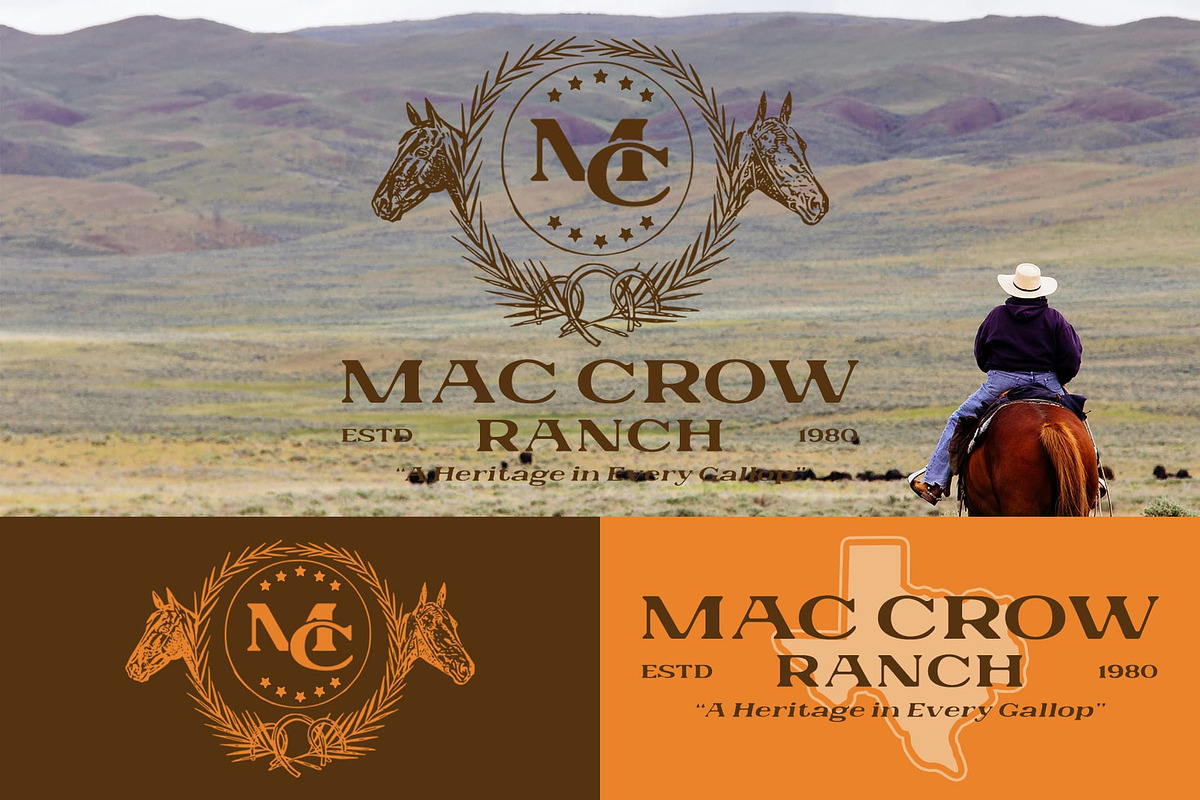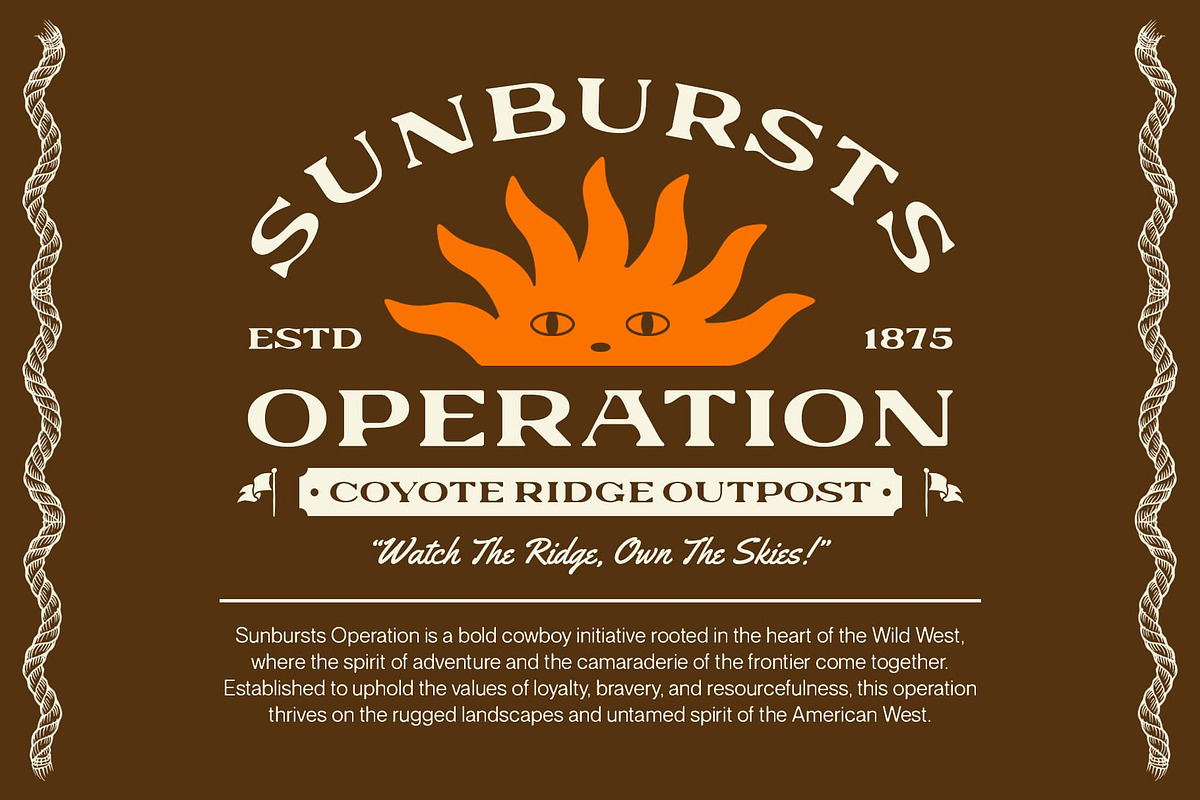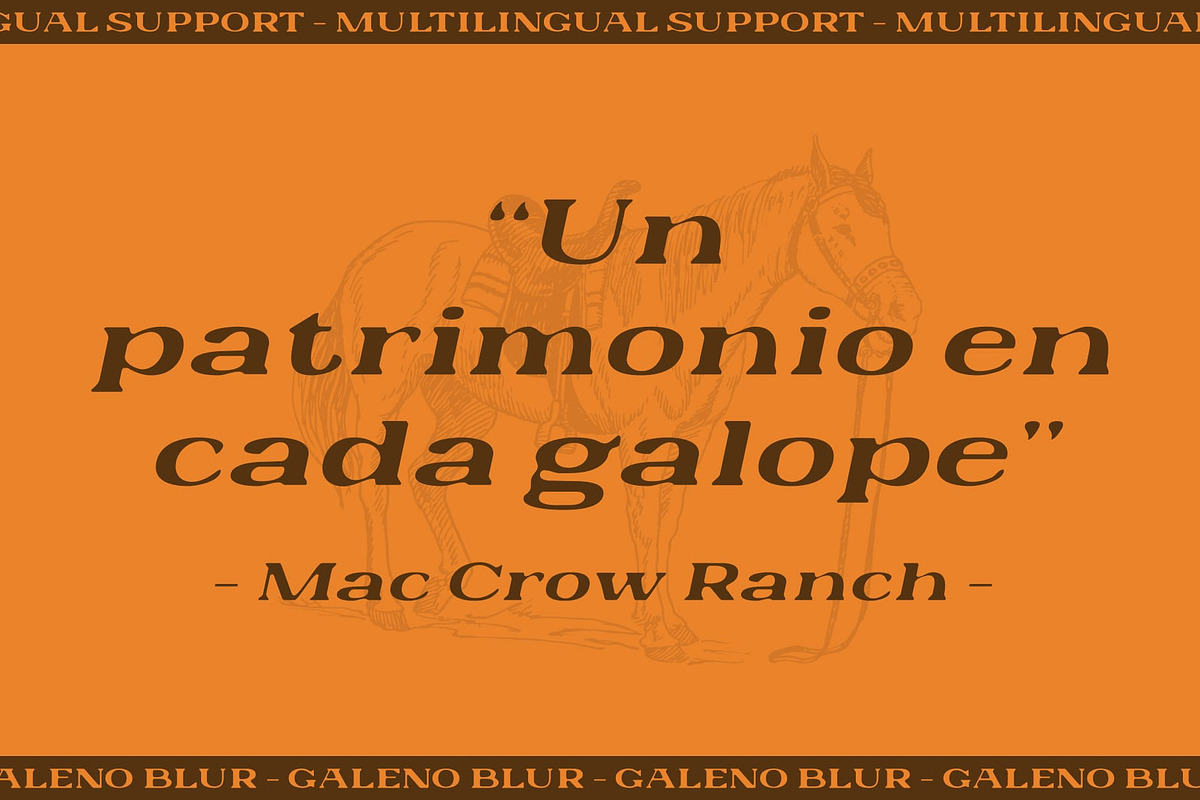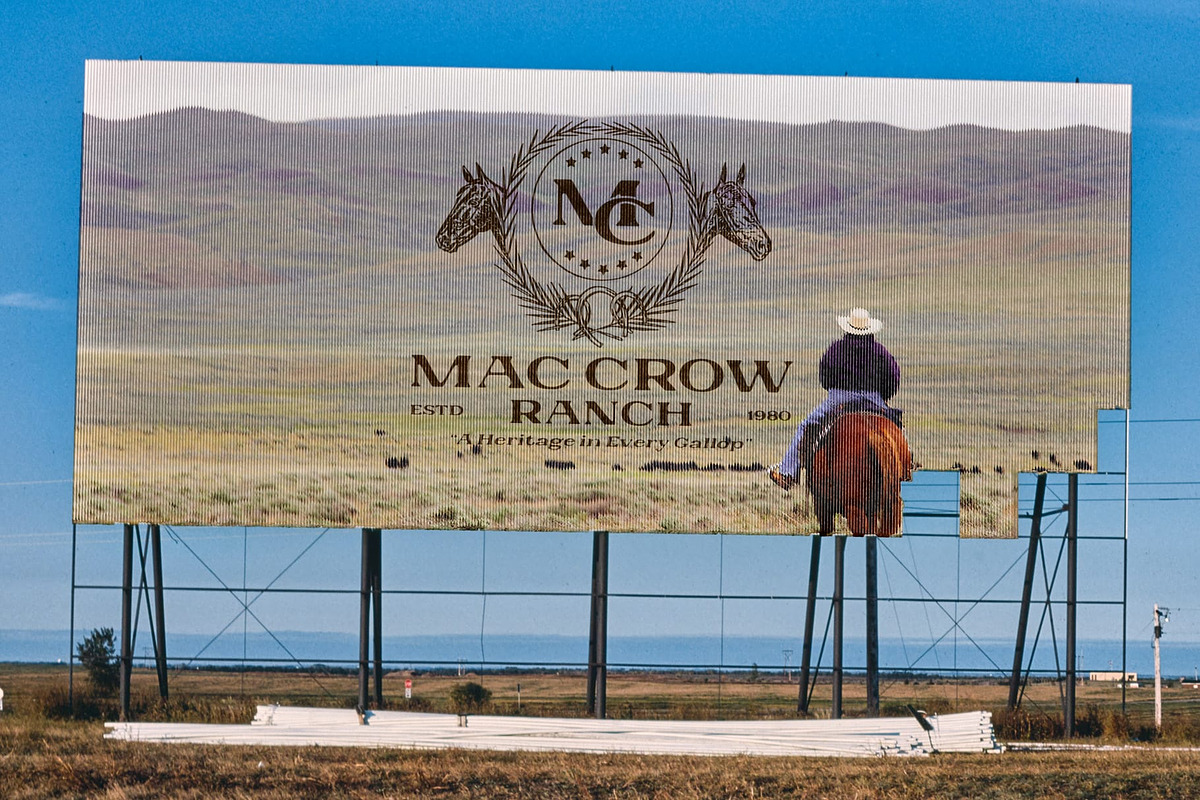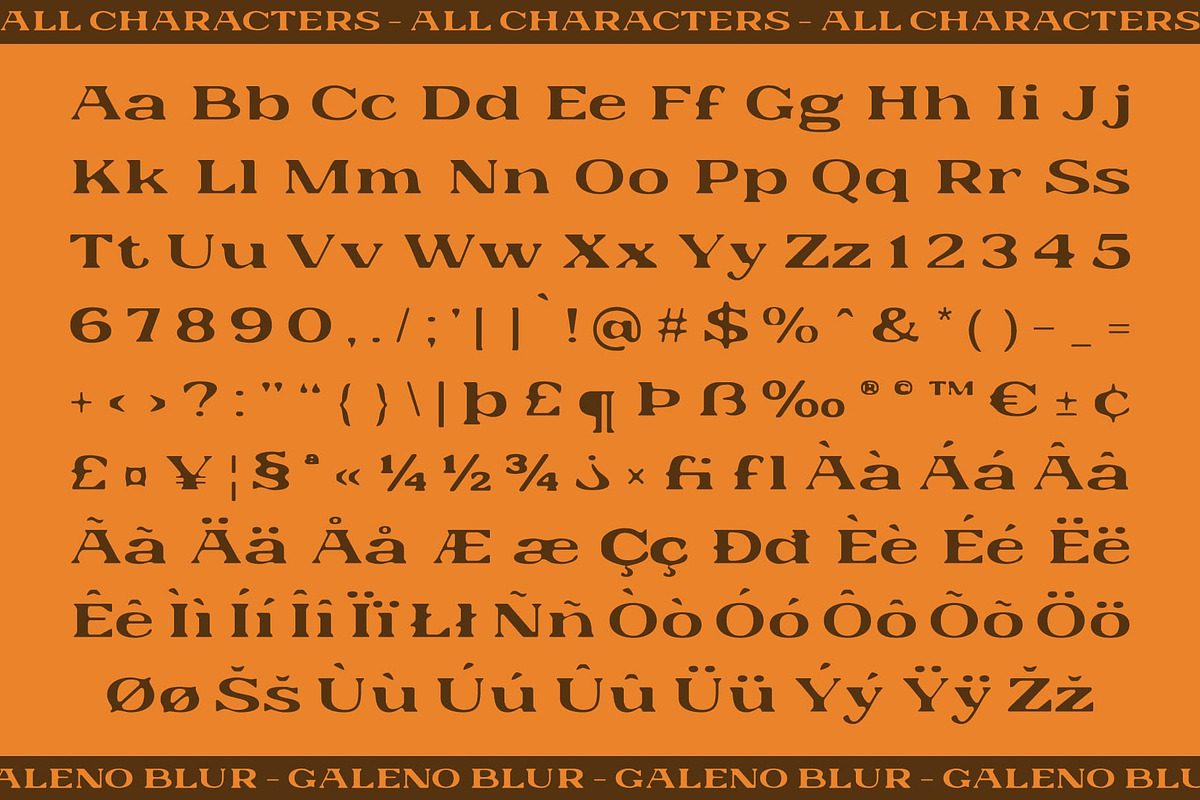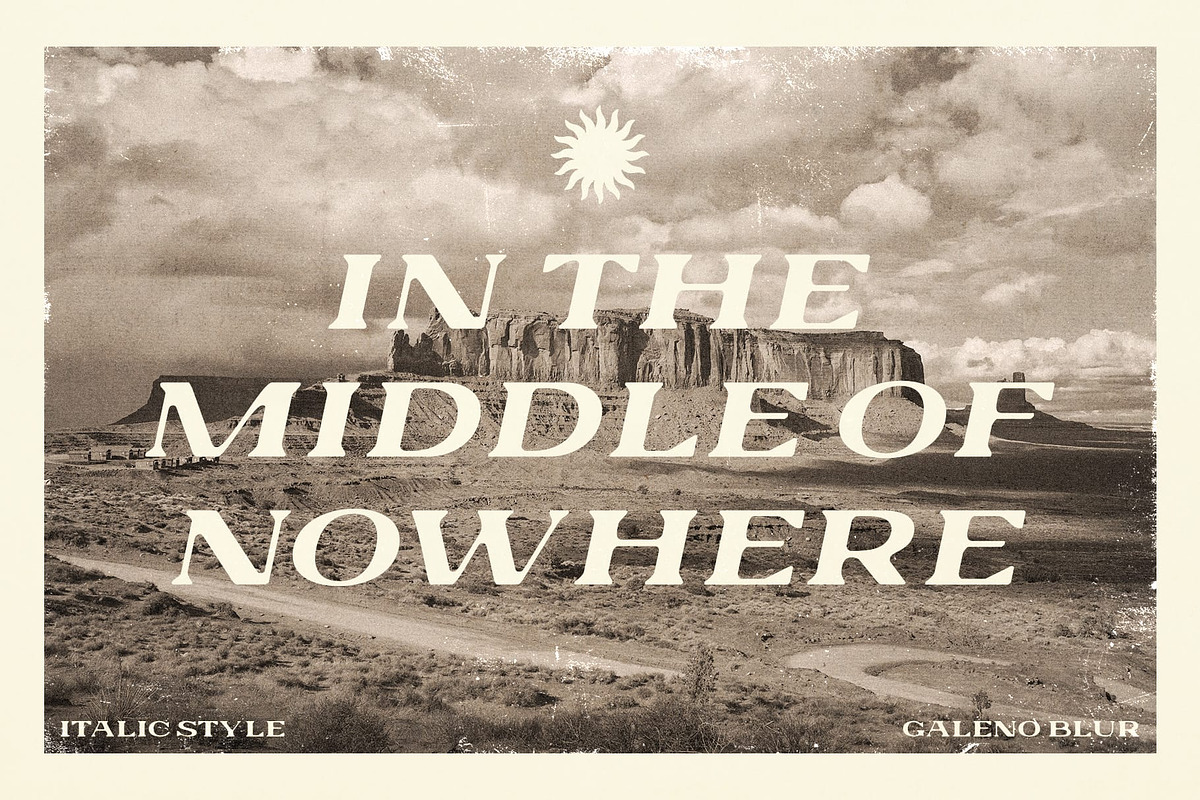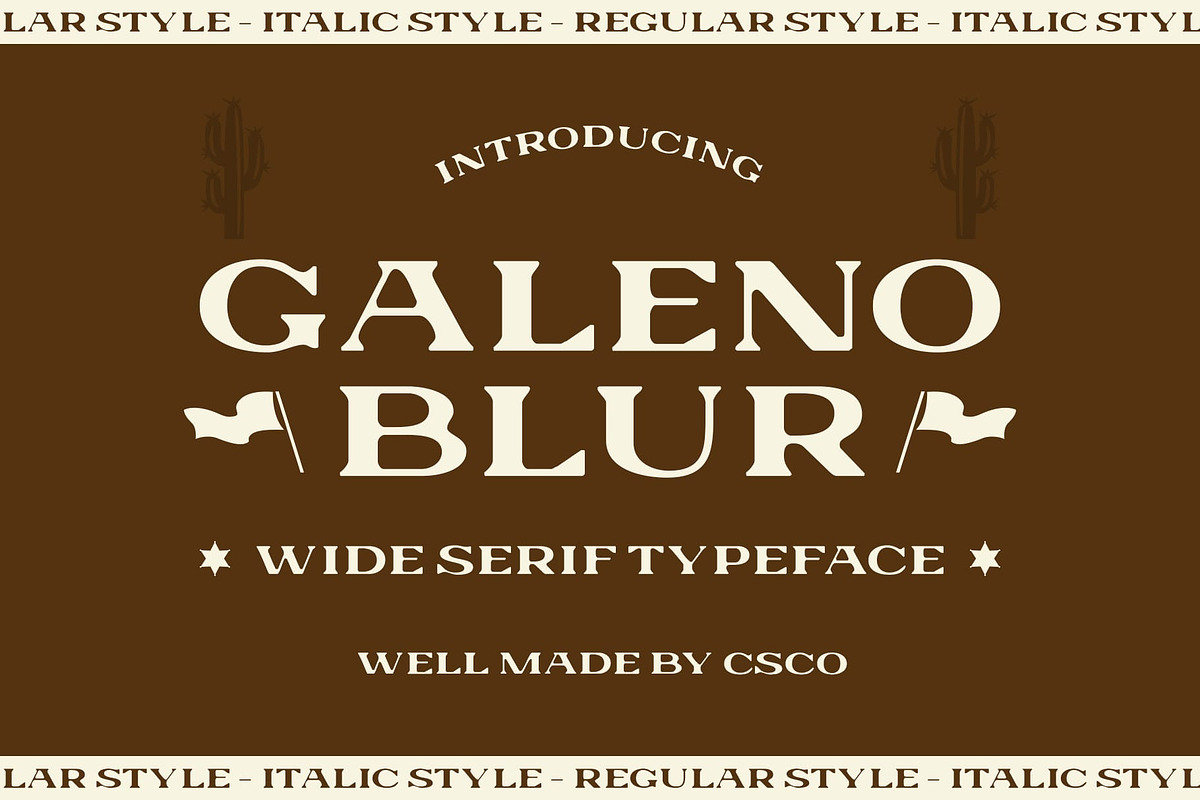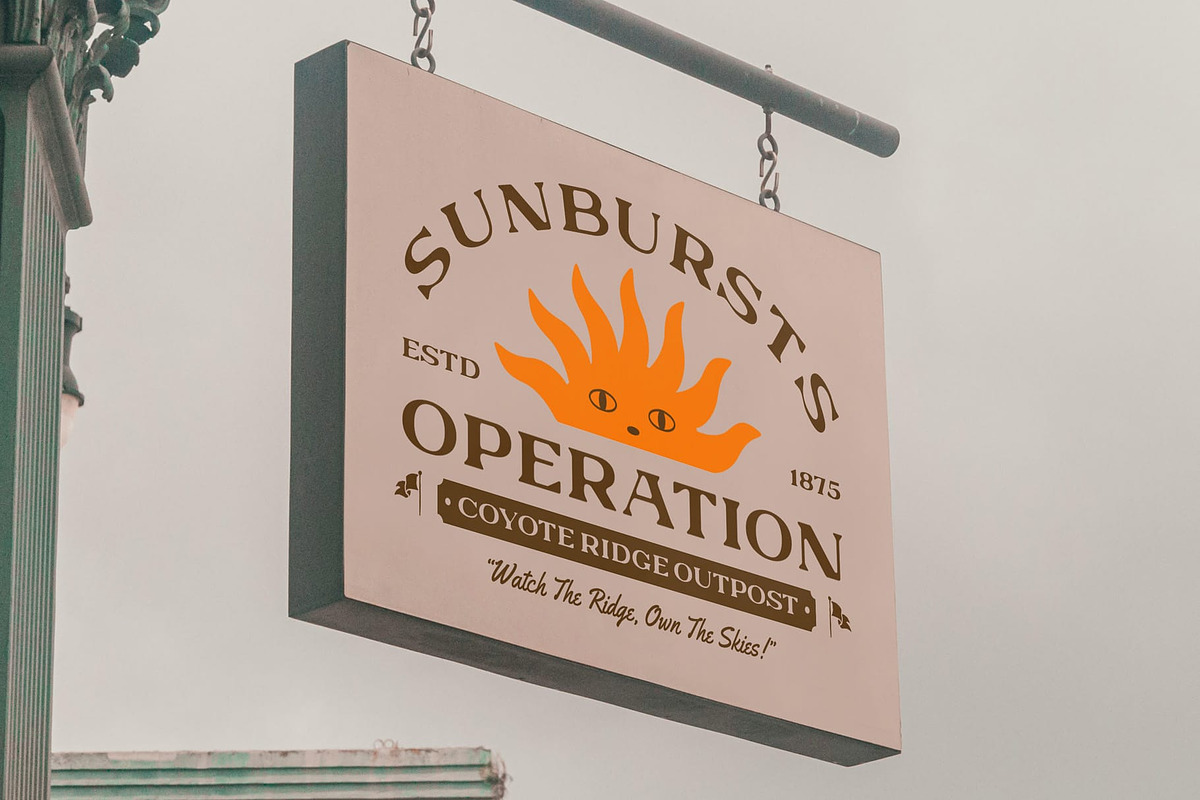
Galeno Blur
Galeno Blur Font: A Retro Classic with a Modern Twist
Evoking 90s Nostalgia with a Modern Edge Galeno Blur is a classic serif font that draws inspiration from the bold typography of the 1990s. Its wide, expanded letterforms and strong presence instantly evoke a sense of retro nostalgia, reminiscent of the playful, daring designs that defined the decade. This font celebrates the power of 90s typography while adding a contemporary flair that keeps it fresh and exciting.
Blur Effect for a Creative, Experimental Twist The addition of a blur effect to Galeno Blur transforms its retro-inspired design into something new and innovative. The blur softens the bold edges of the letterforms, giving it a dynamic, experimental quality that catches the eye. This modern twist creates an intriguing balance between the classic 90s aesthetic and a more contemporary, forward-thinking look, making it ideal for projects that demand a striking visual appeal.
Perfect for Retro-Inspired Designs with a Modern Flair Galeno Blur is designed for those who want to make a bold statement with a fusion of vintage charm and modern creativity. Whether used for branding, posters, or other bold visual designs, this font captures attention and evokes a strong sense of style. It’s ideal for projects that want to celebrate retro vibes while adding a unique, experimental edge.